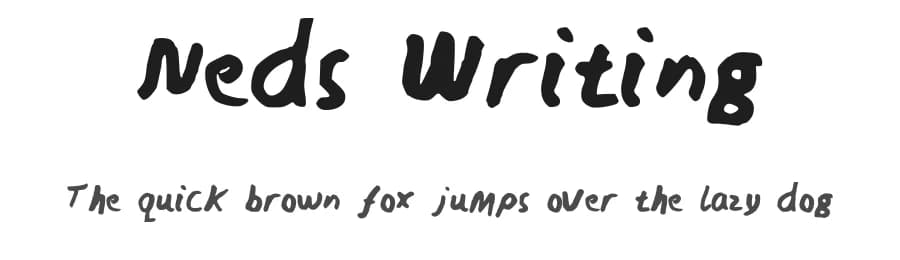
About Neds Writing Font
Neds Writing is a script & handwritten font designed by Emily Underworld. It includes 143 glyphs, a medium weight, TTF (TrueType) format, and 133 languages. Neds Writing is free to download; check the license details on this page before commercial use. Script & handwritten fonts like Neds Writing work best for wedding invitations, greeting cards, signatures, and elegant branding.
Neds Writing Font is a script font that shines as a display or heading face. Pair it with a clean sans-serif or serif font for body text β the contrast creates a clear hierarchy while the two styles stay balanced and easy to read.